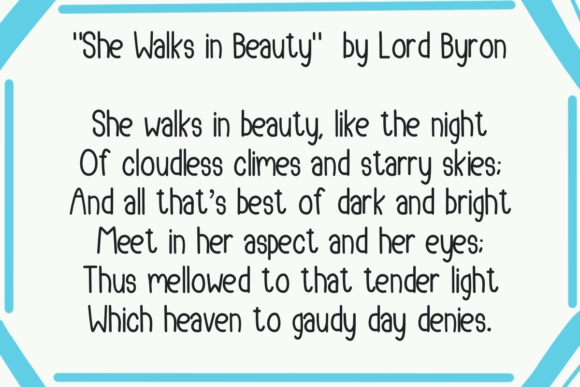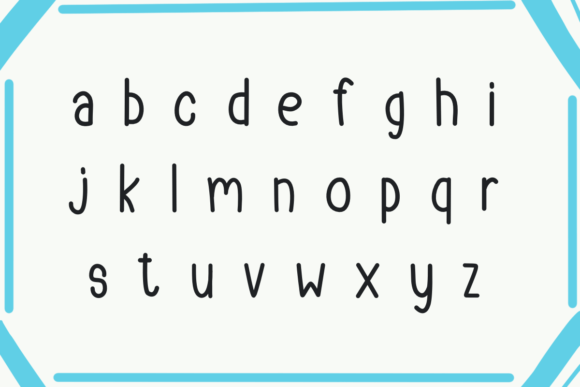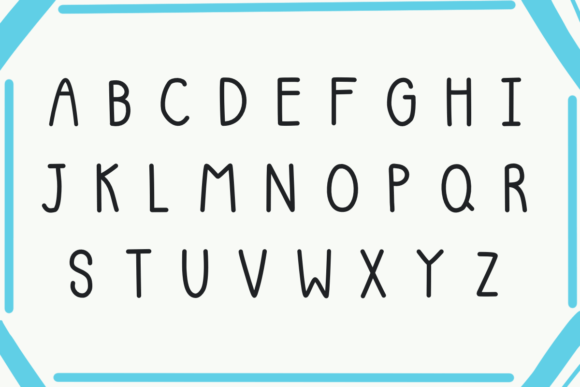
The Power of Good Font: Elevate Your Designs with a Friendly and Versatile Handwritten Style
In the world of typography, a good font can make all the difference in elevating your designs from ordinary to extraordinary. If you’re a designer, crafter, or simply someone who loves to dabble in creative projects, you’re likely always on the lookout for the perfect font to bring your ideas to life. That’s where Good Font comes in – a cute, fun, and simple handwritten font that’s sure to capture your heart. With its friendly feel and incredible flexibility, Good Font is the perfect addition to any design project.
What Makes Good Font So Special?
Good Font is more than just a pretty face – it’s a versatile and trendy font that’s designed to make your designs stand out. Its friendly and approachable feel makes it perfect for a wide range of contexts, from playful crafts and DIY projects to more professional designs, such as branding, packaging, and marketing materials. Whether you’re looking to add a personal touch to your work or create a bold statement, Good Font is the perfect choice.
Endless Variations at Your Fingertips
One of the best things about Good Font is its endless variations. With a wide range of letters, numbers, and punctuation marks, you can create unique and interesting combinations that will keep your designs fresh and exciting. Whether you’re looking to create a bold and playful headline or a more subtle and elegant text, Good Font has got you covered. And with its simple and intuitive design, you can easily experiment with different styles and combinations to find the perfect look for your project.
Good Font is a dream come true for designers and crafters alike. Its cute and fun design makes it perfect for a wide range of creative projects, from handmade crafts and DIY tutorials to professional design work. Whether you’re a seasoned designer or just starting out, Good Font is a great addition to your font library. And with its flexibility and versatility, you can use it to create a wide range of designs, from playful and whimsical to bold and sophisticated.
Tips for Using Good Font in Your Designs
• Experiment with different sizes and combinations to create visual interest and hierarchy.
• Use Good Font to add a personal touch to your designs, such as in headings, titles, and captions.
• Mix and match Good Font with other fonts to create a unique and interesting contrast.
• Don’t be afraid to get creative and try out new and unusual combinations – it’s all part of the fun!
In conclusion, Good Font is a friendly and versatile handwritten font that’s perfect for designers, crafters, and anyone who loves to dabble in creative projects. With its cute and fun design, endless variations, and flexibility, Good Font is sure to elevate your designs and bring your ideas to life. So why not give it a try and see the difference it can make?
Whether you’re a seasoned designer or just starting out, Good Font is a great addition to your font library. Its trendy and playful design makes it perfect for a wide range of creative projects, from handmade crafts and DIY tutorials to professional design work. So go ahead, add Good Font to your designs, and watch as it brings a touch of personality and whimsy to your work.